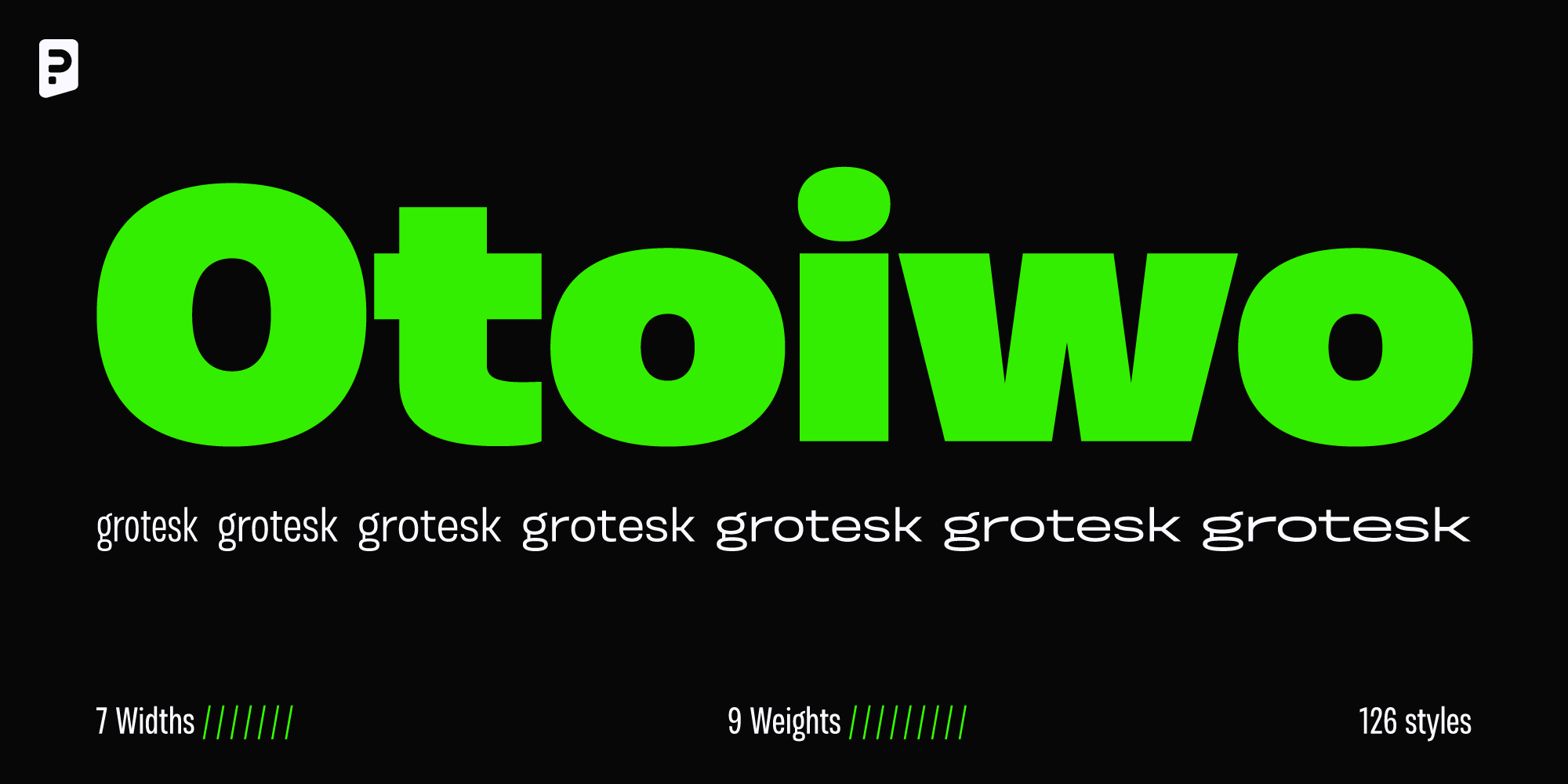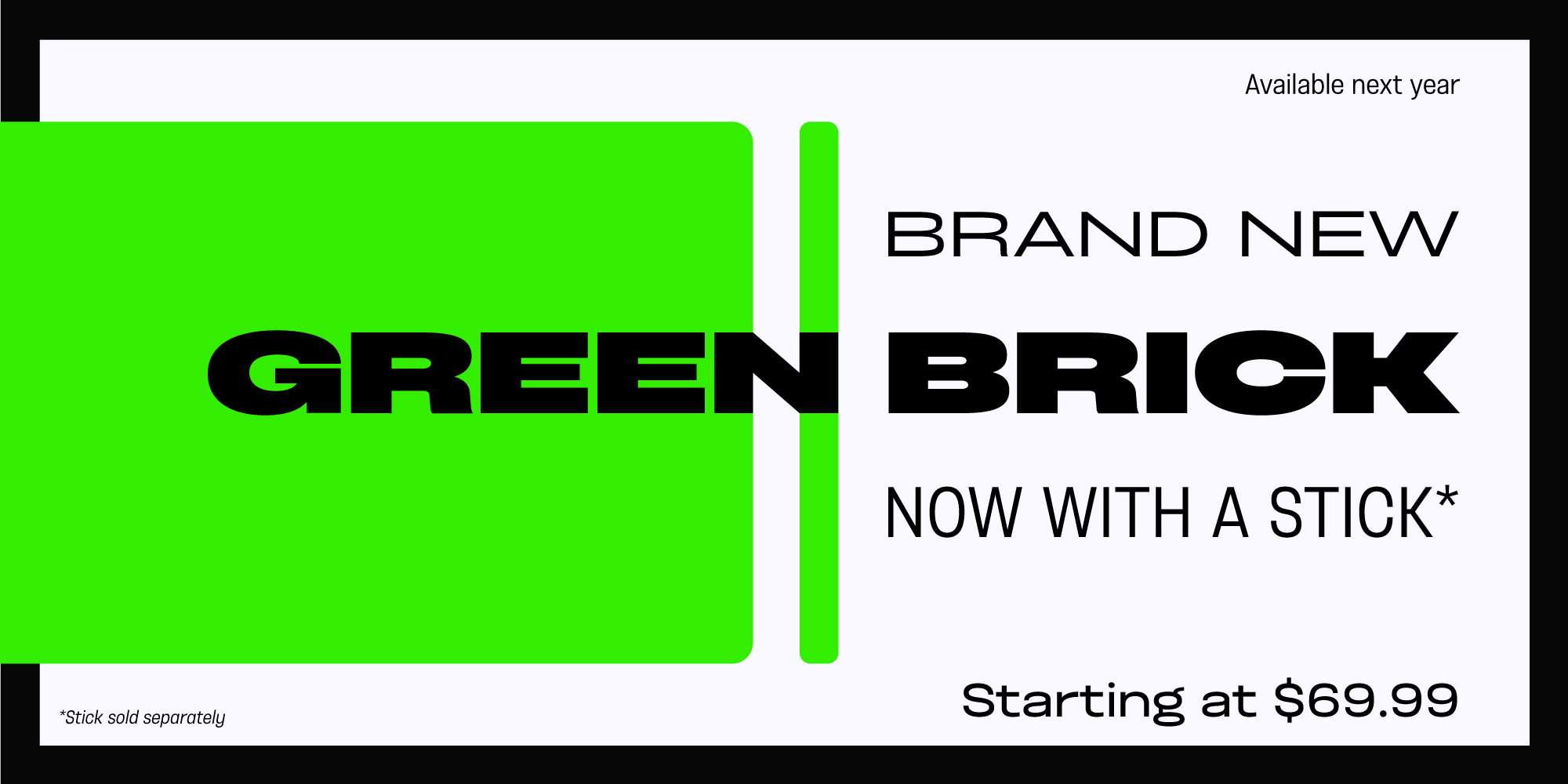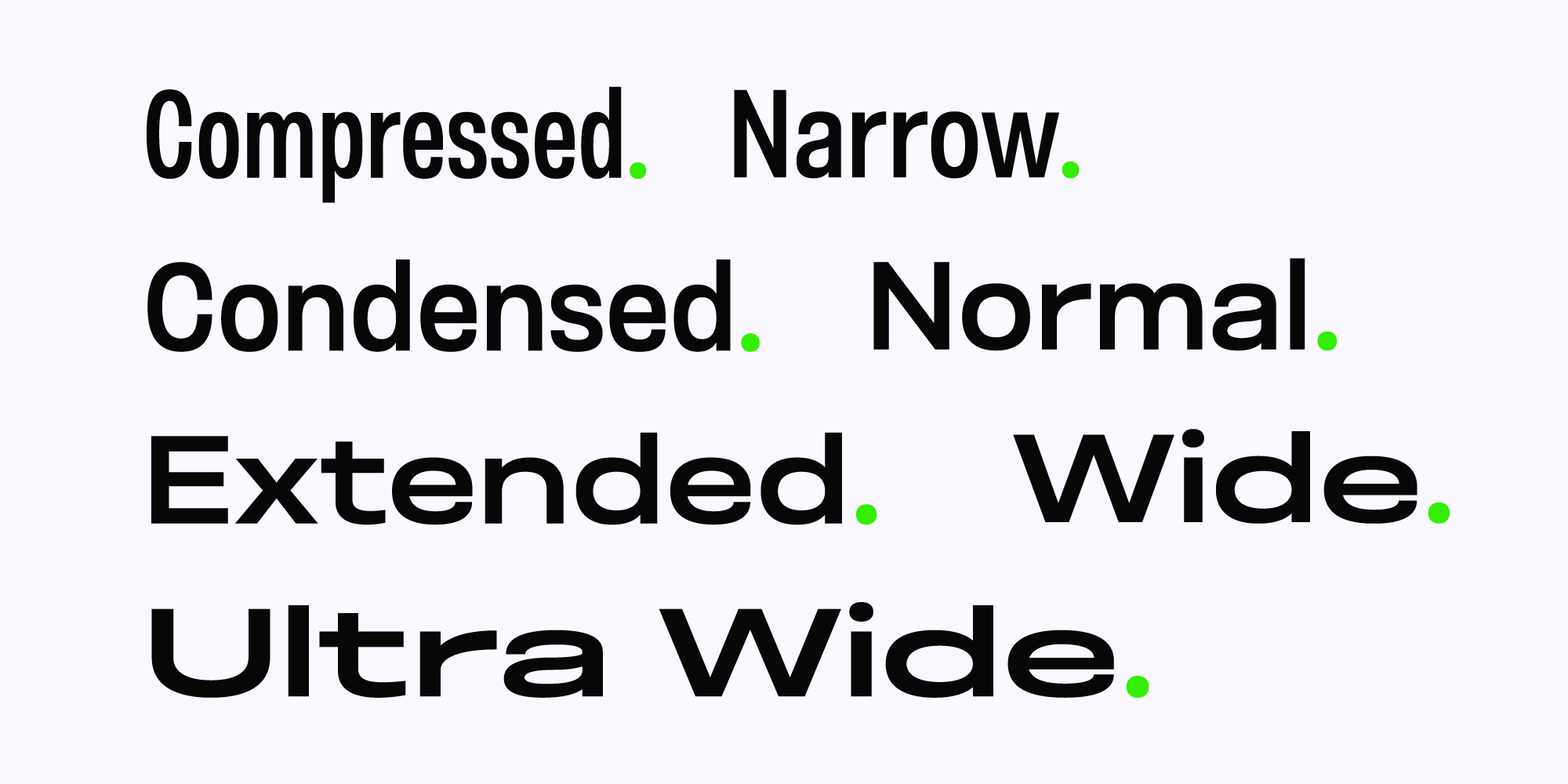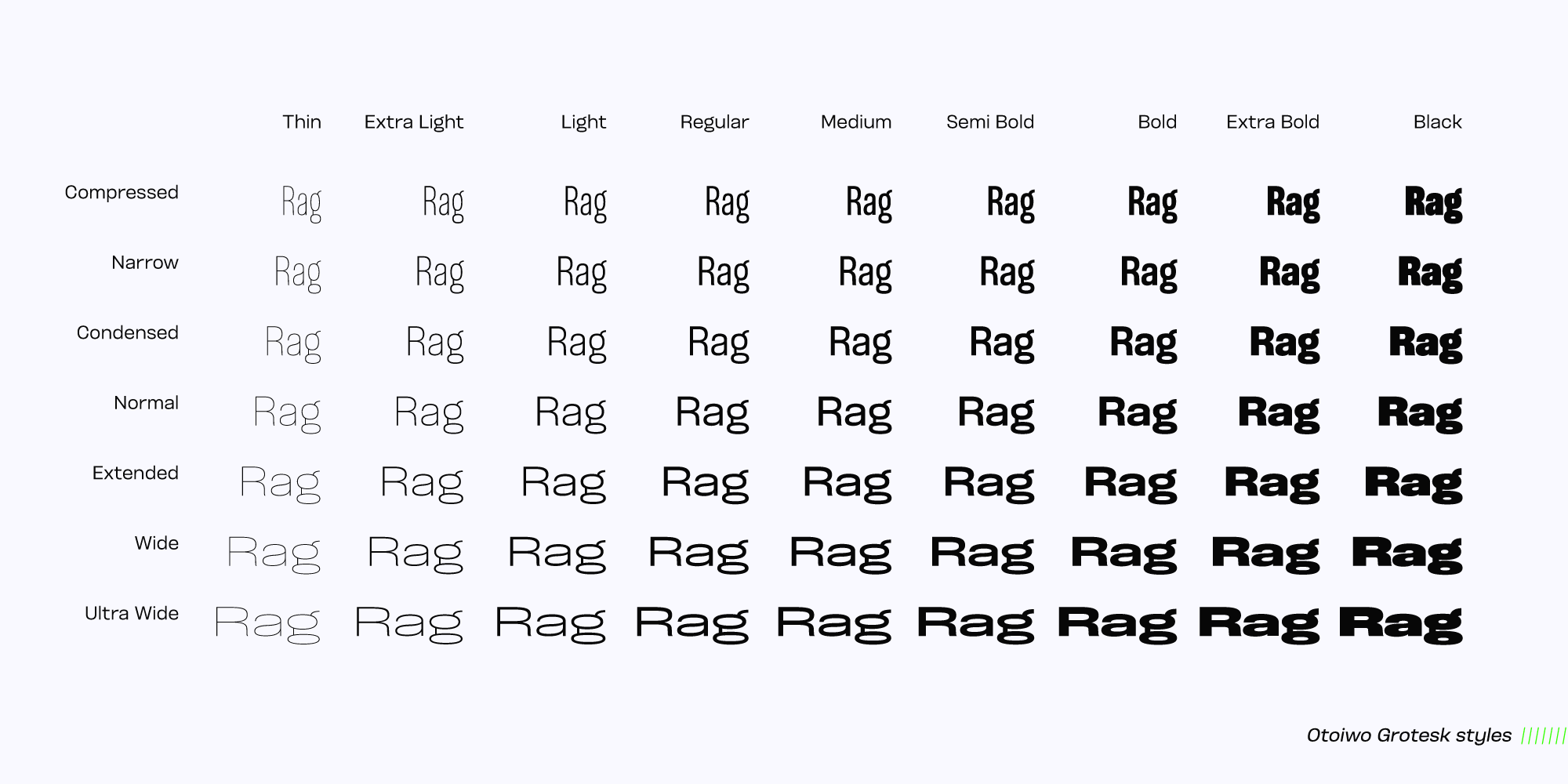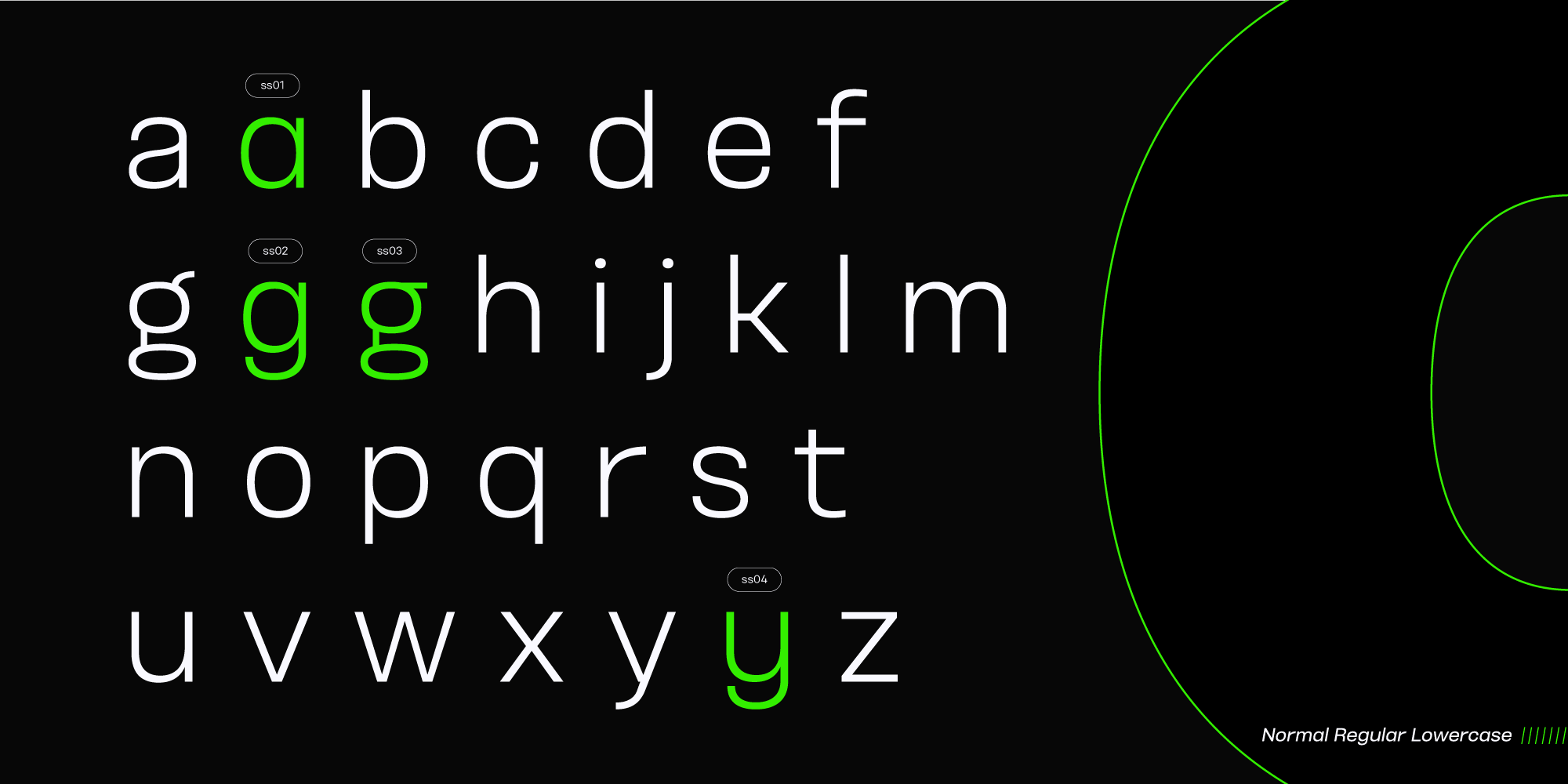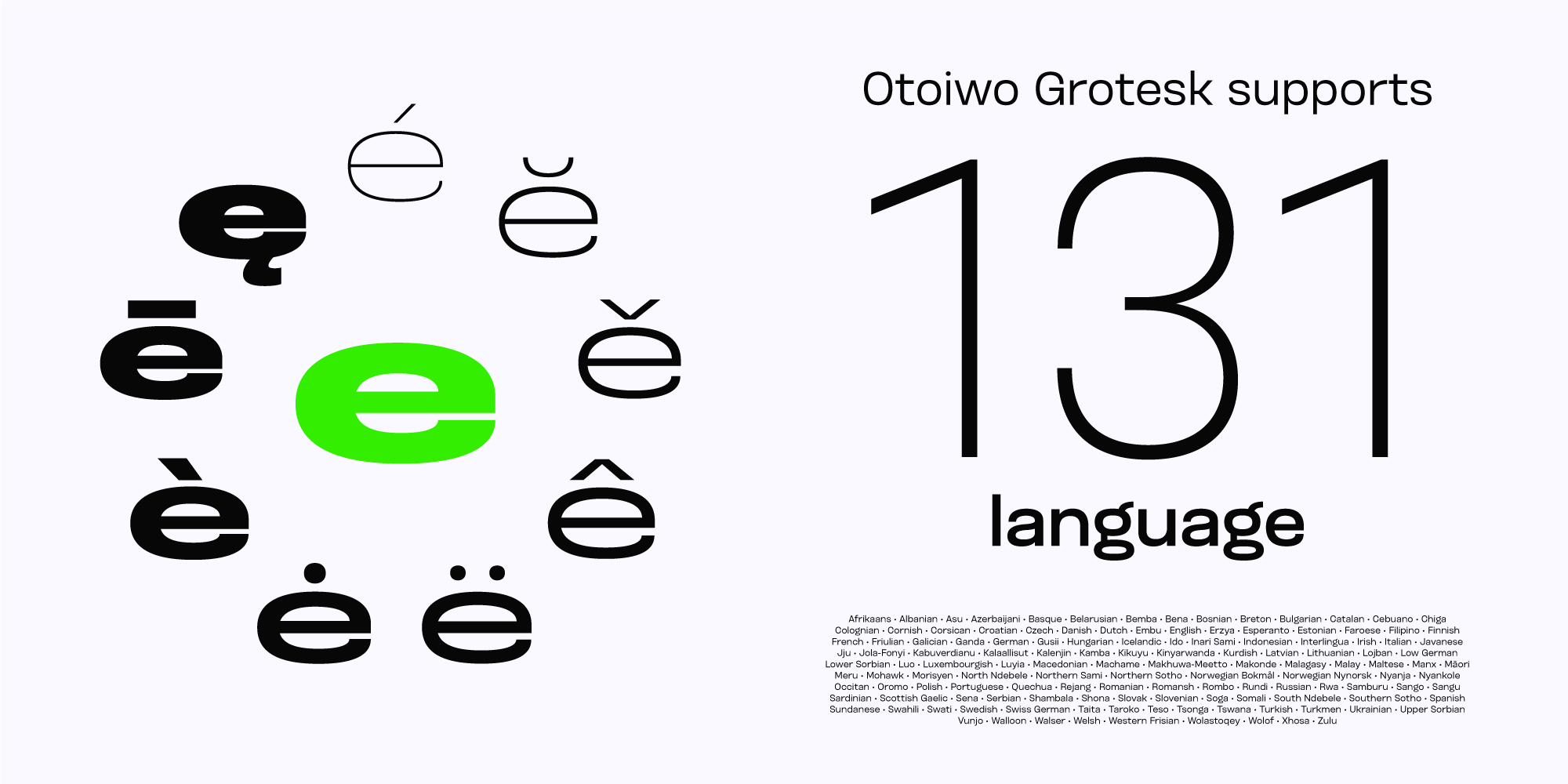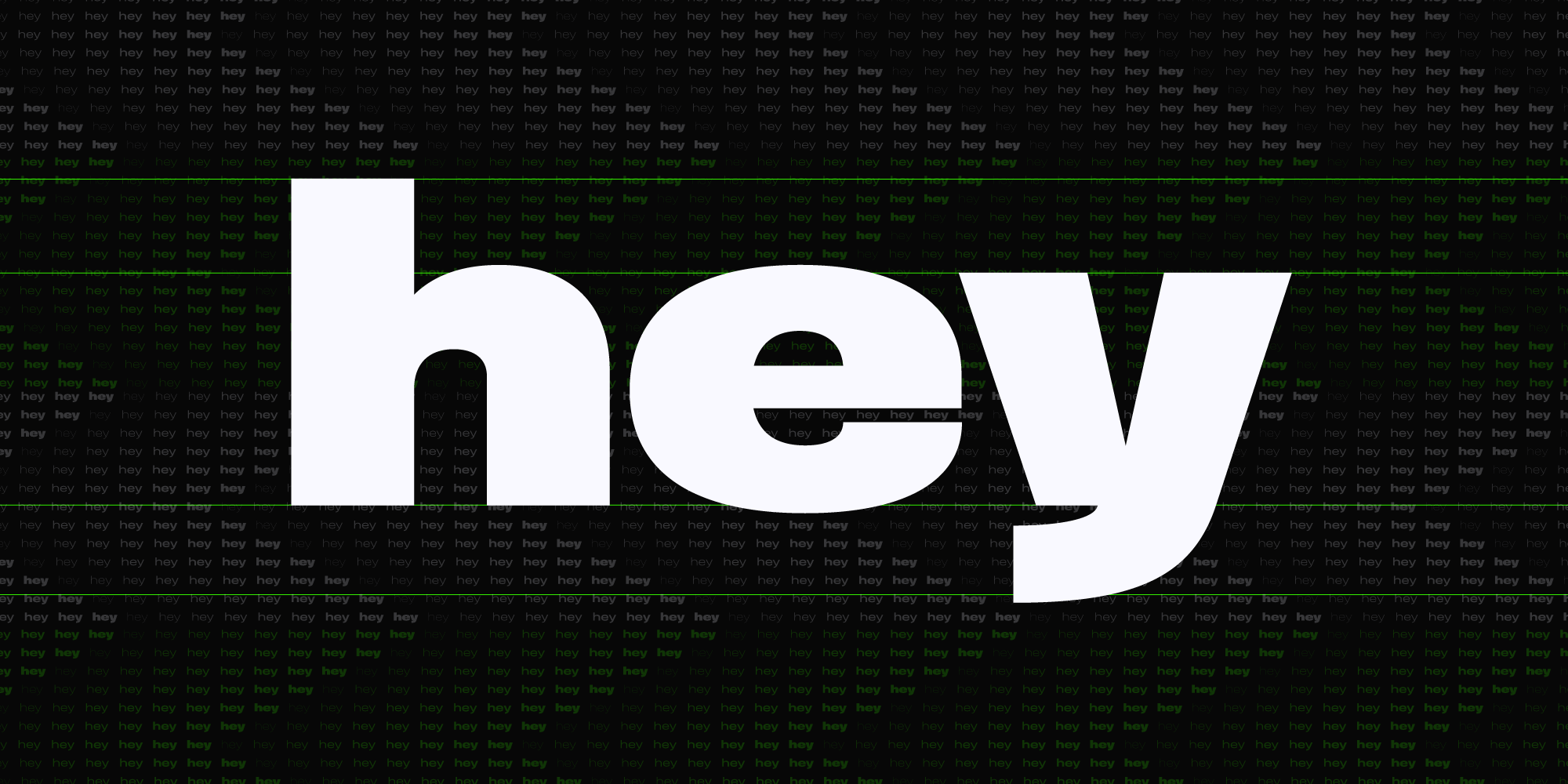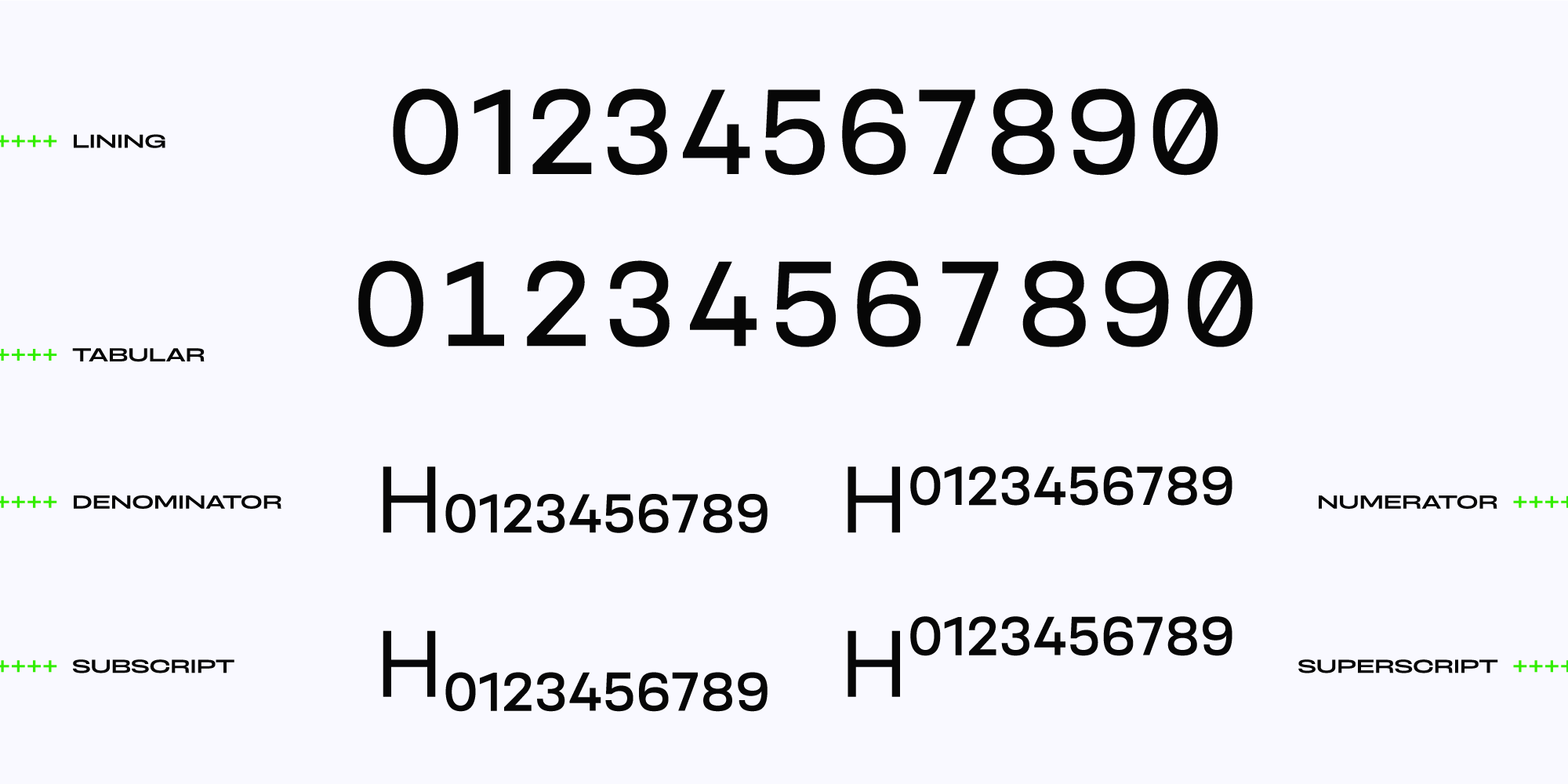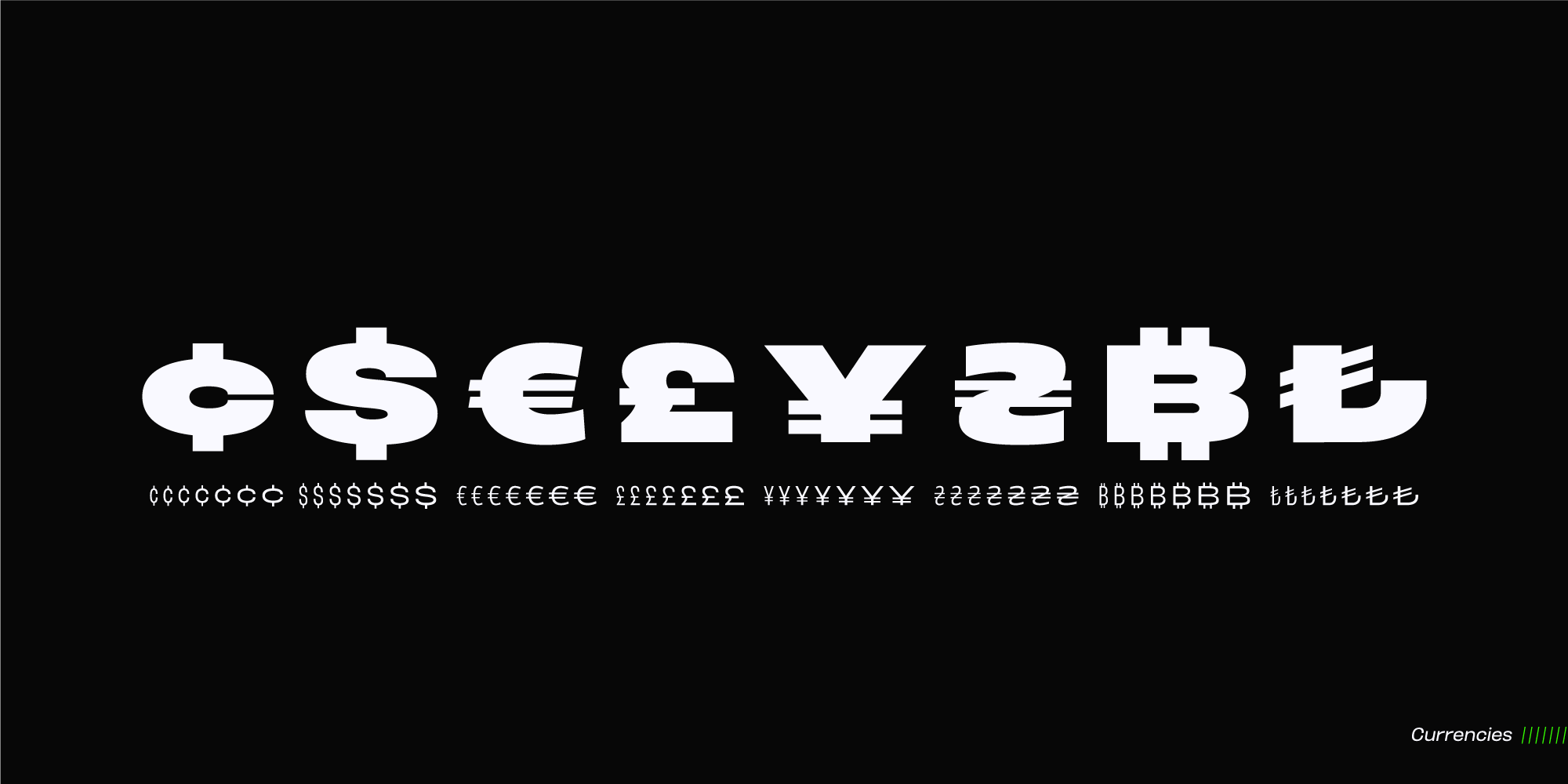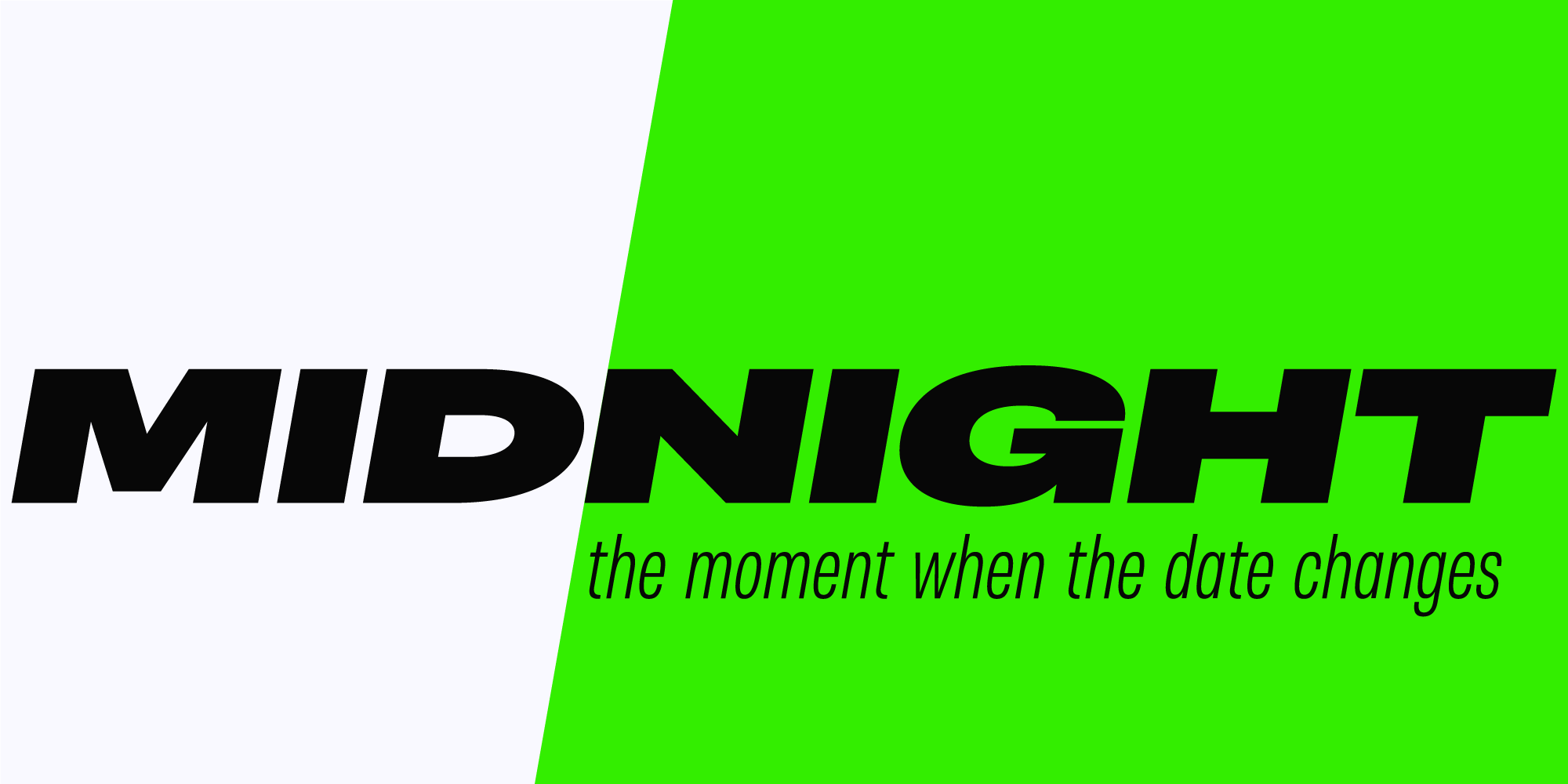
Otoiwo Grotesk Ultra Wide
Otoiwo Grotesk is an extremely versatile sans-serif typeface with a closed aperture. It features whopping 126 styles over 7 widths, each containing 9 weights with corresponding italics.
The mood of the family ranges from fairly neutral in Normal and Condensed widths to very flavorful Compressed and Ultra Wide.
Rich language support, which includes Cyrillic and spans 131 language ovarall, makes Otoiwo Grotesk a worthy choice for brands that strive to reach international audience.
Designed by Oleh Lishchuk